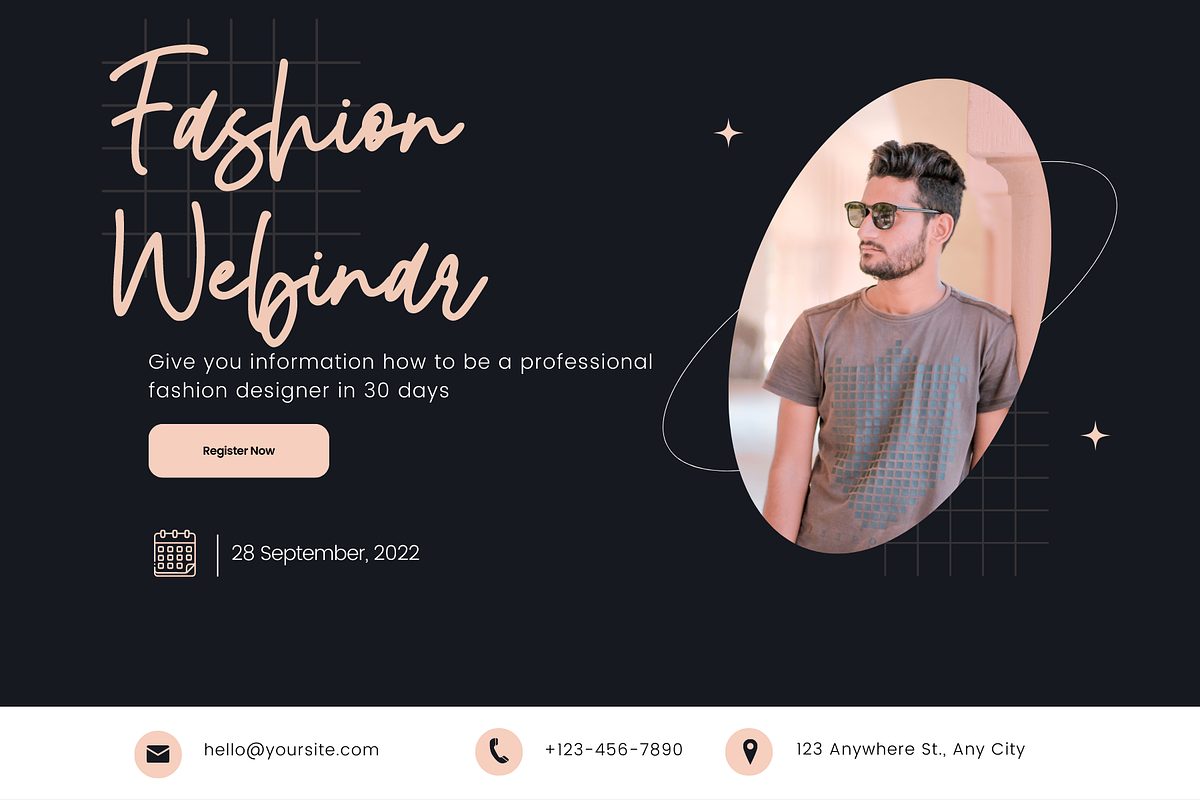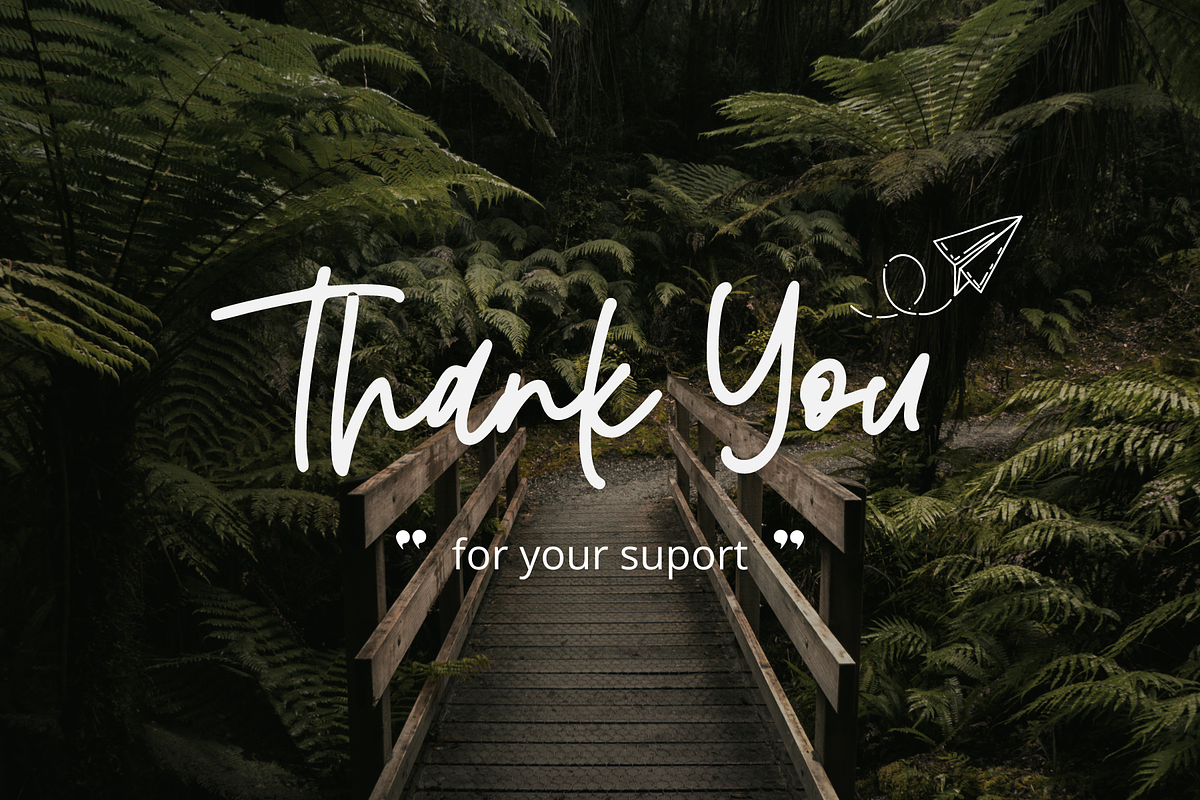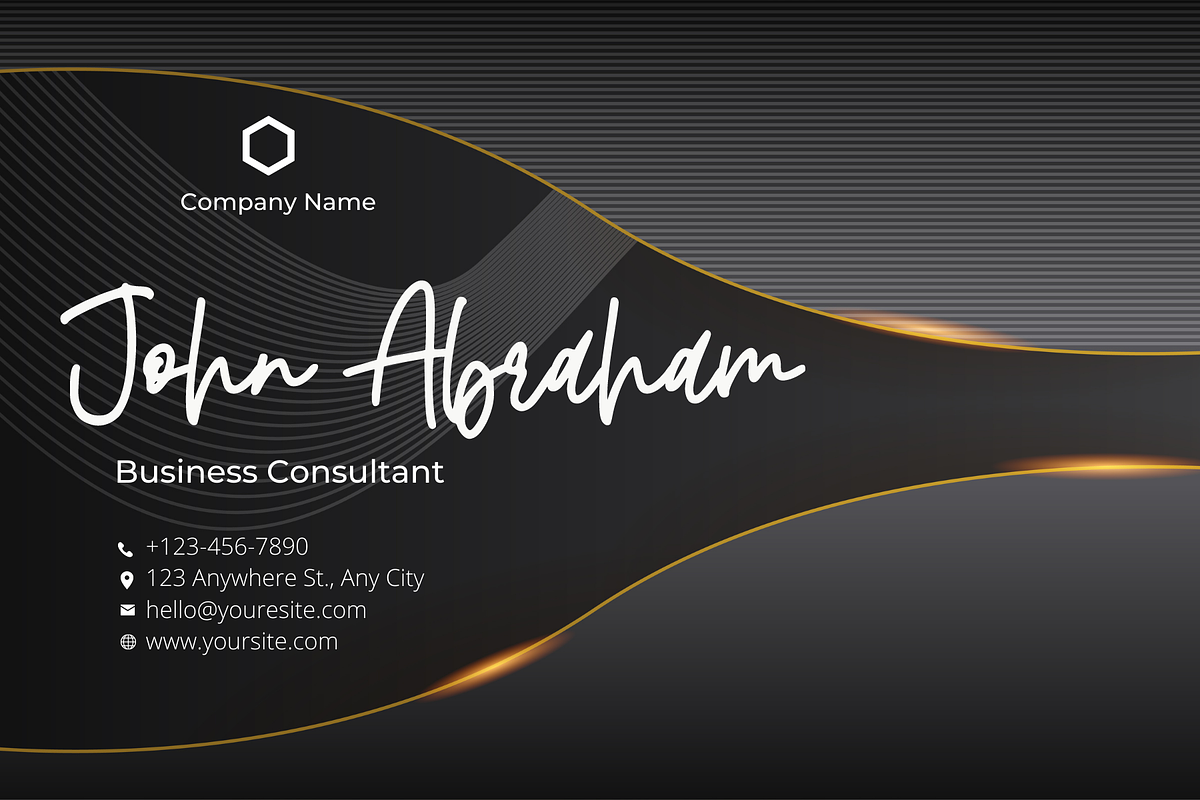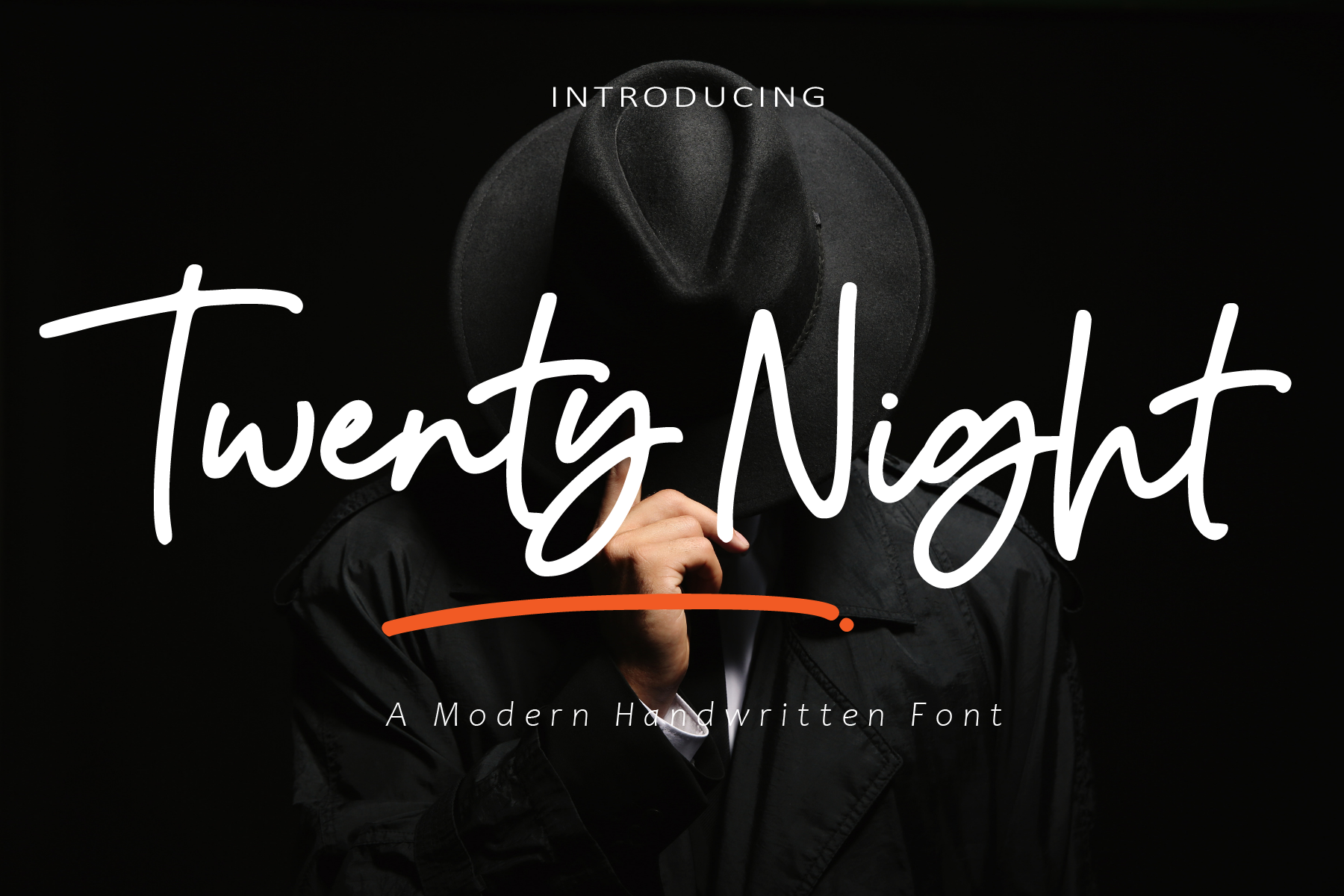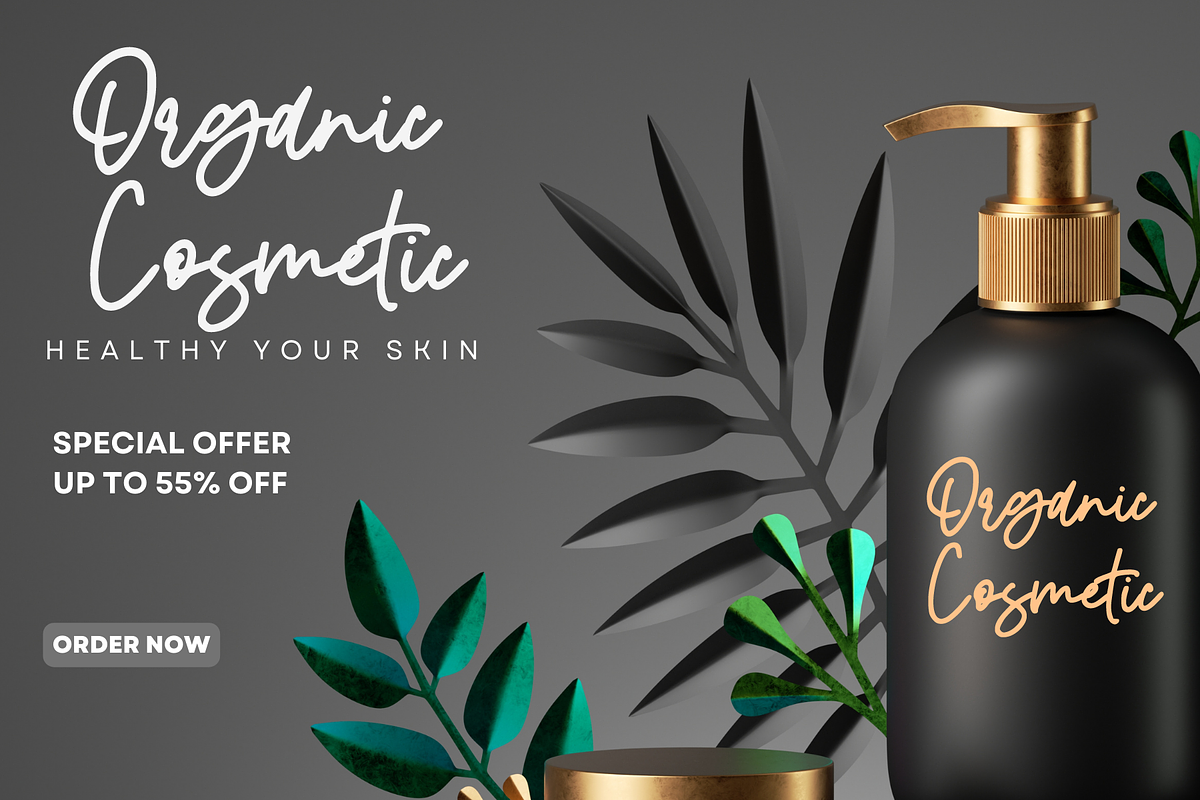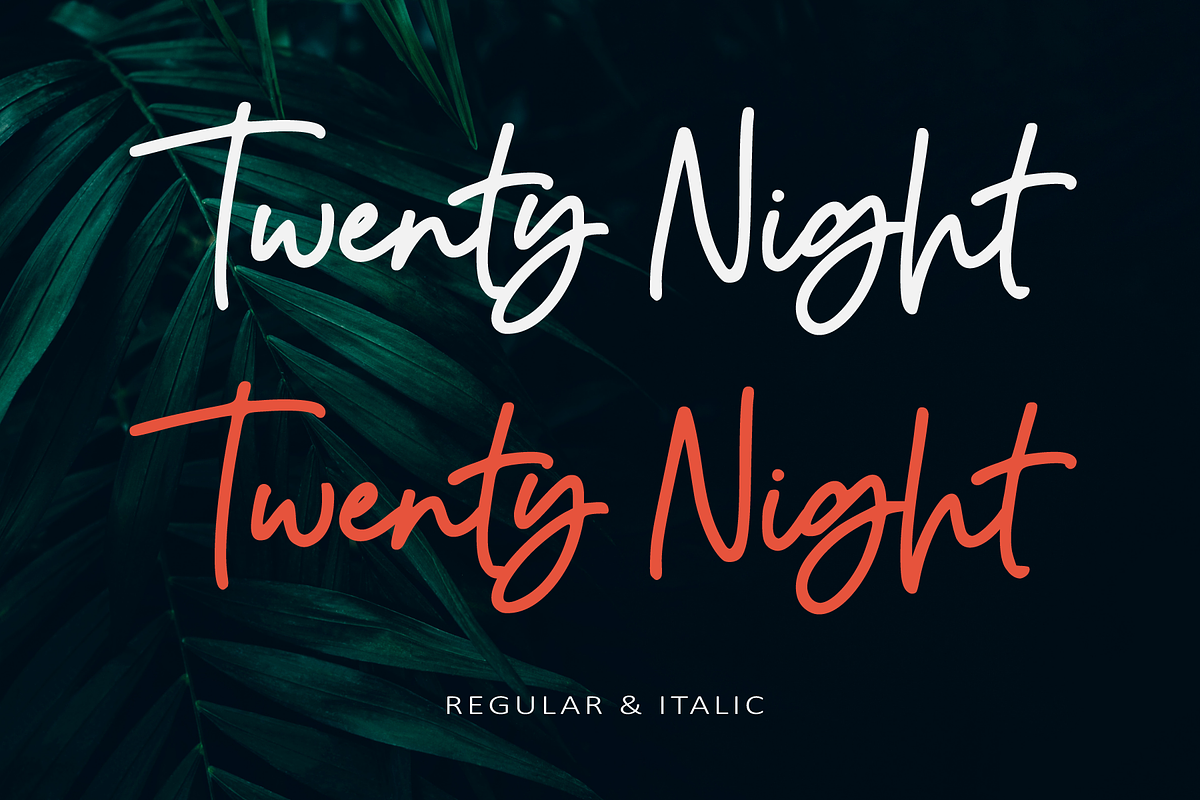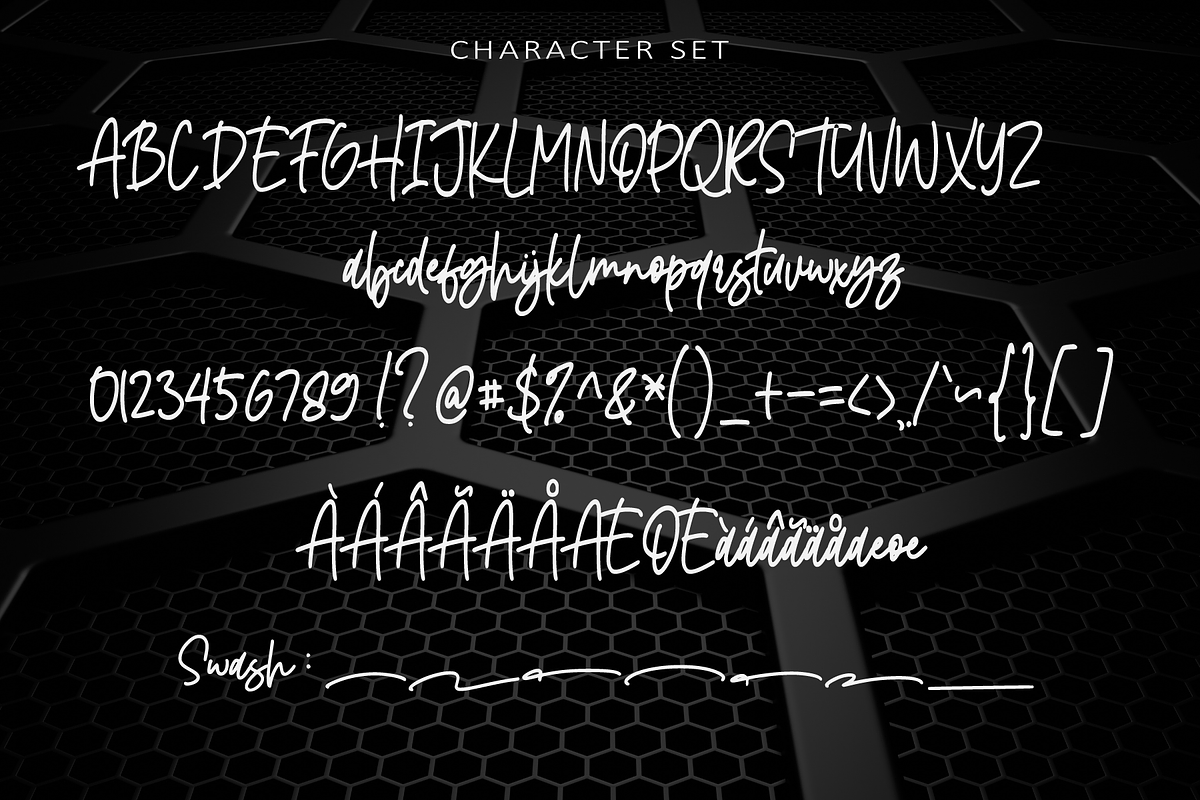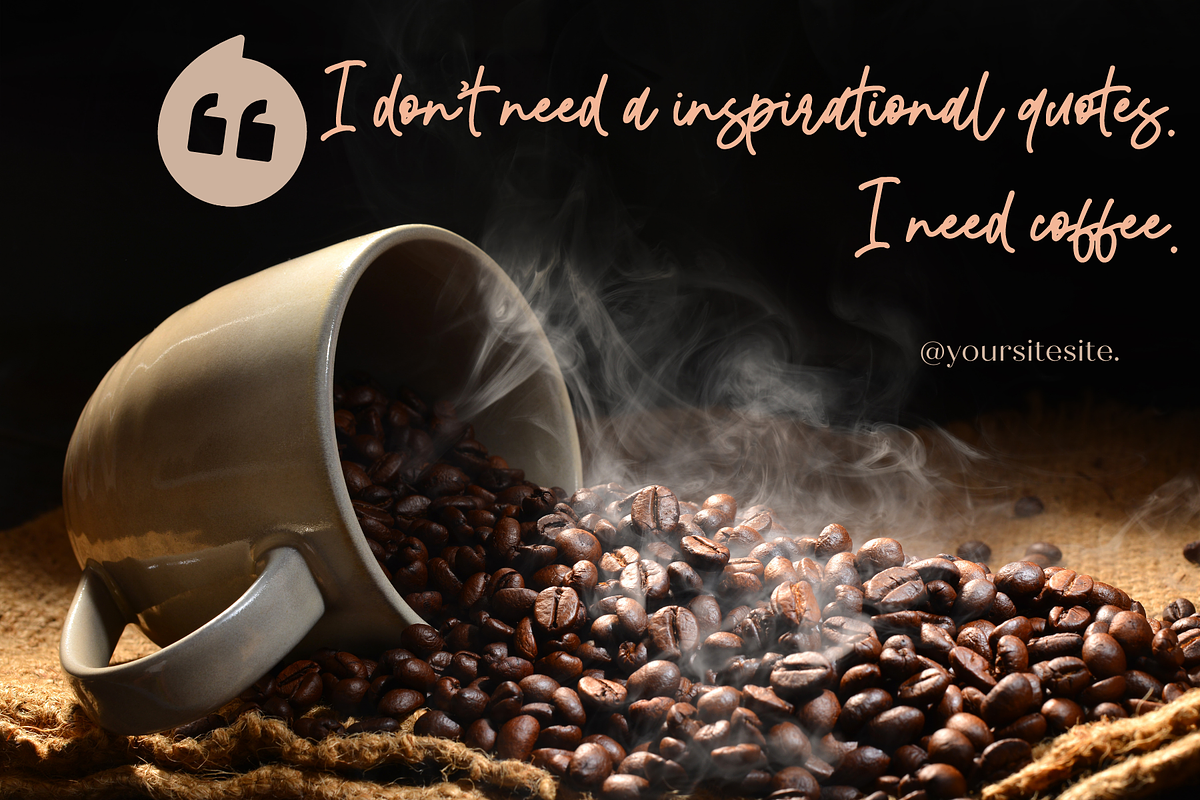
Twenty Night | Handwritten Font
Twenty Night is a modern handwriting font. Its charm makes it appear wonderfully, readable, and, ultimately, incredibly versatile.
This font will look outstanding in any context, whether it’s being used on busy backgrounds or as a standalone headline! Comes in Regular and Italic styles.